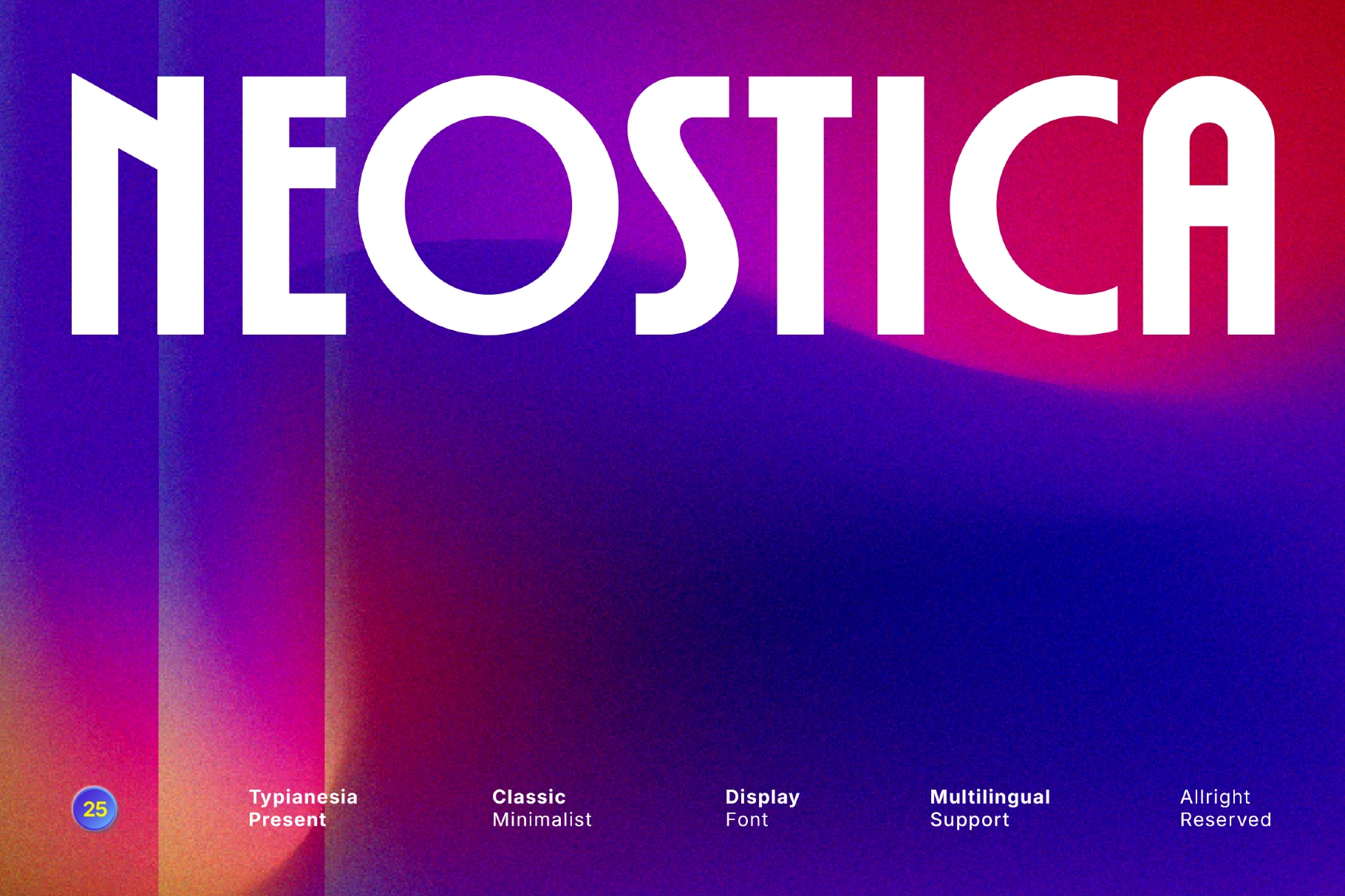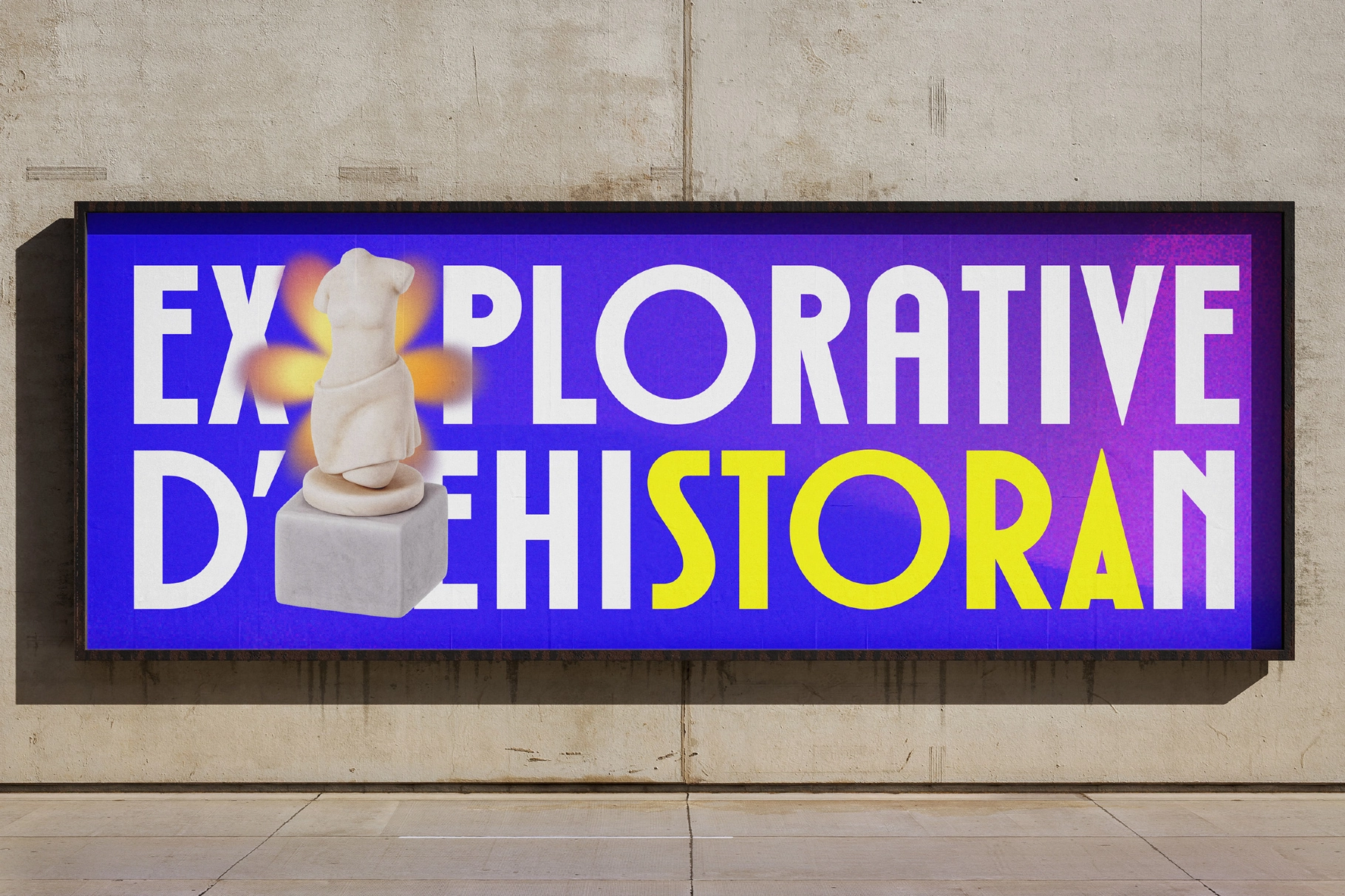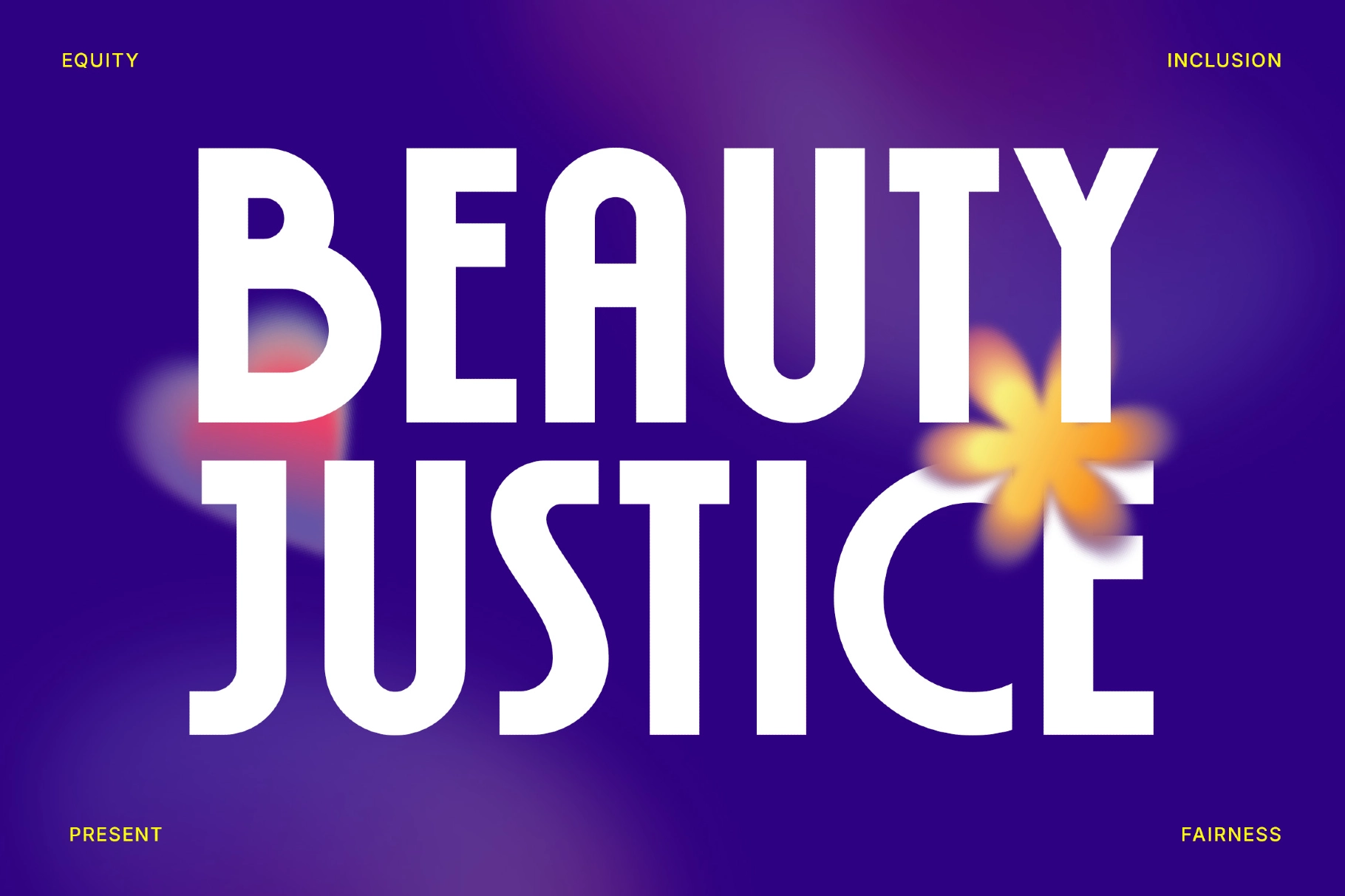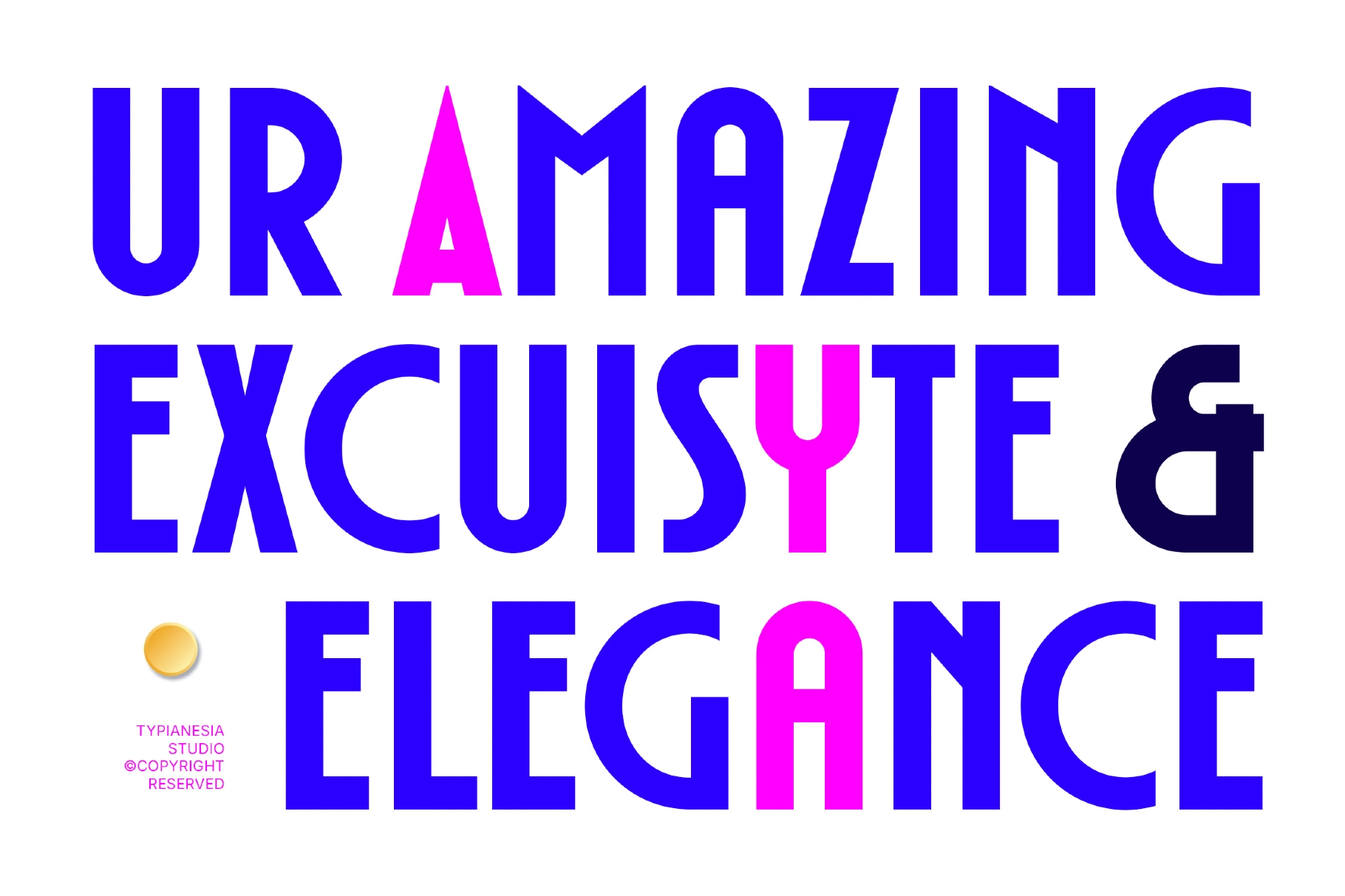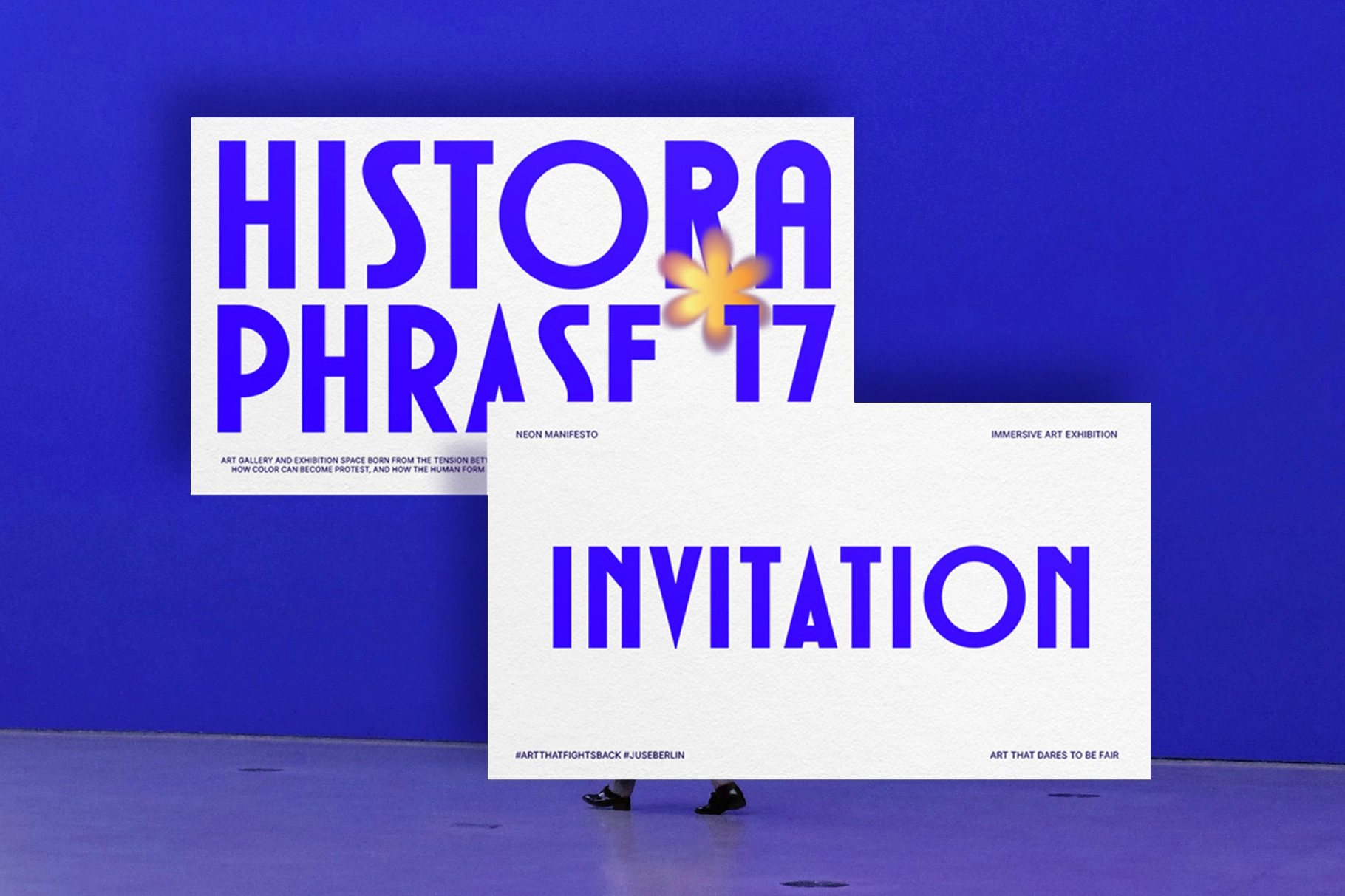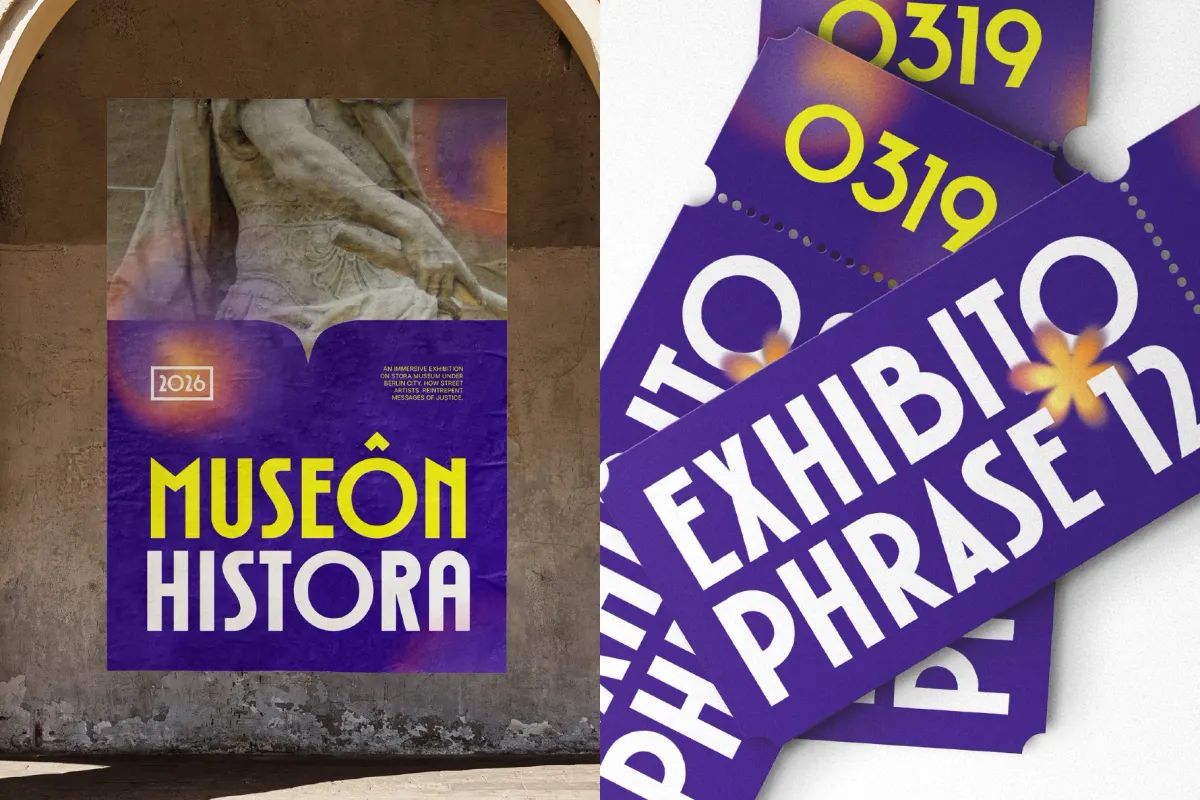
Neostica - Bold Geometric Sans Serif
Neostica
Neostica - Bold Geometric Sans Serif brings a confident presence to contemporary typography with its tall, condensed proportions and refined geometric structure. Inspired by subtle Art Deco elegance yet shaped with a modern minimalist approach, Neostica delivers clarity, sophistication, and strong visual impact.
Its balanced construction makes it ideal for branding, wordmarks, corporate identities, editorial headlines, posters, and exhibition graphics. Designed for both digital and print use, Neostica maintains excellent legibility while preserving its distinctive vertical character.
- Condensed, tall display style with modern–classic influence
- Uppercase & lowercase characters
- Stylistic alternates for enhanced flexibility
- Extensive ligature set for refined typography
- Complete numerals & punctuation set